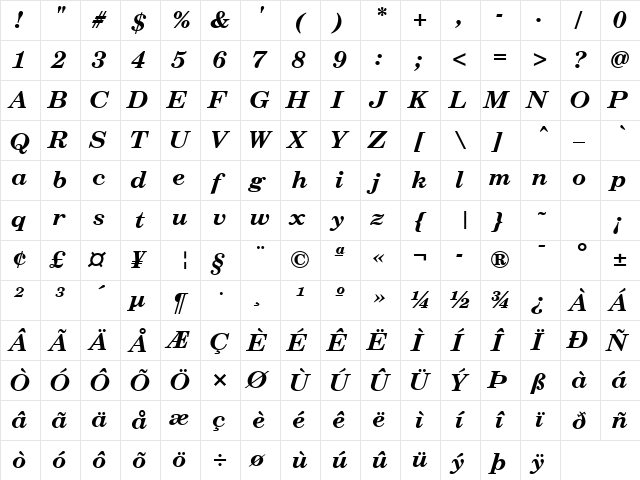
Copenhagen BoldItalic Font Preview
Design Context for Copenhagen Typeface
Copenhagen takes a measured approach to typography — its balanced proportions and neutral character make it a reliable workhorse for both digital and print work. Its italic angle brings a sense of urgency and motion to the letterforms. The heavy weight commands attention and anchors typographic hierarchies.
Pro Tip: Try Copenhagen for annotation and caption copy alongside an upright companion — the contrast in angle creates a dynamic but ordered typographic system.